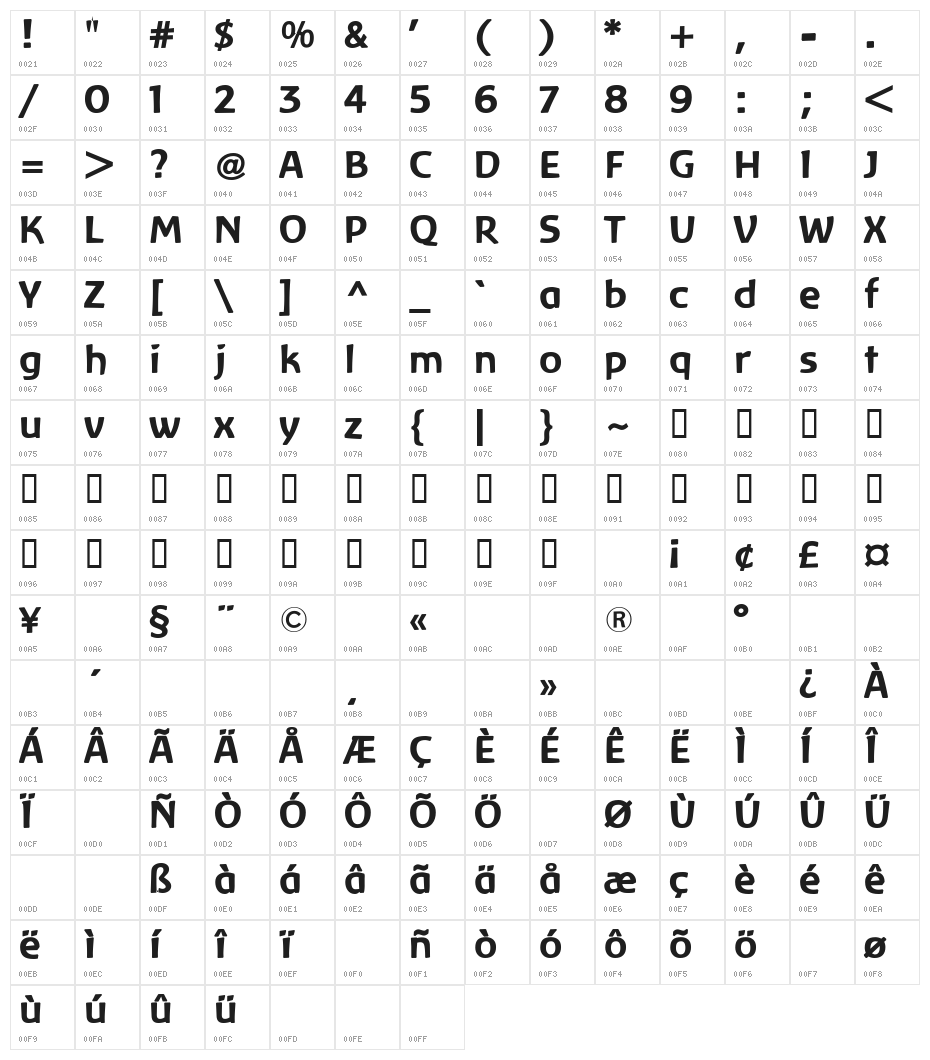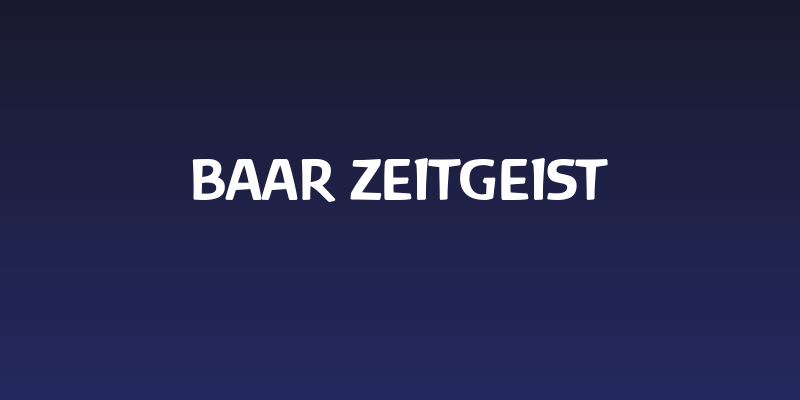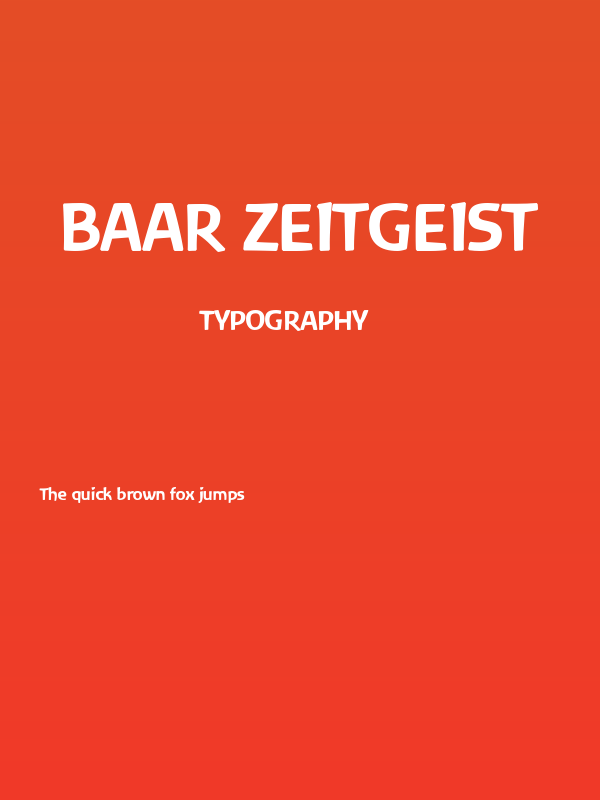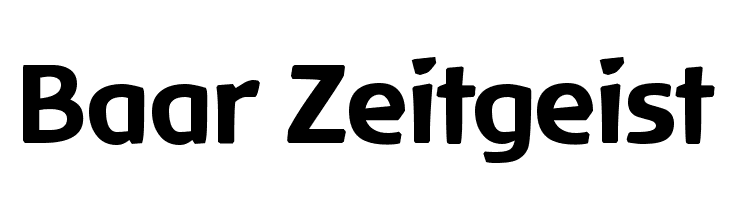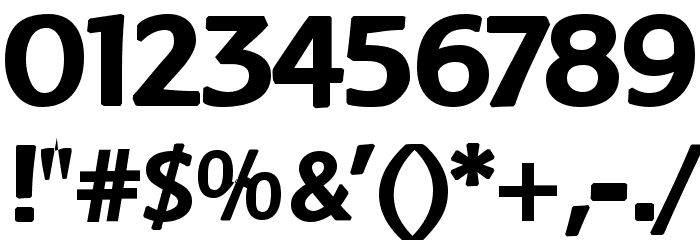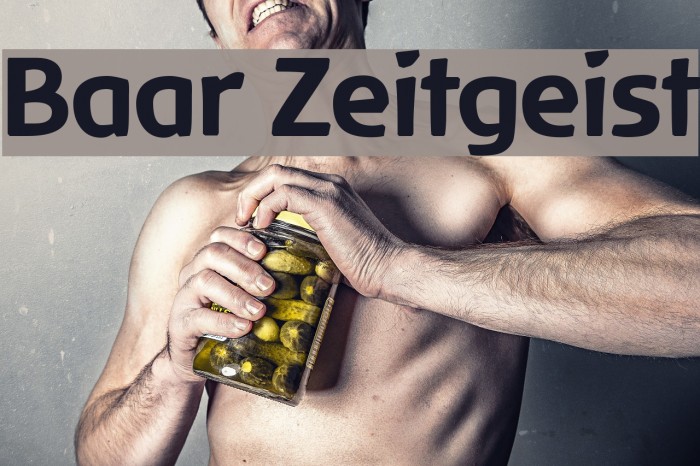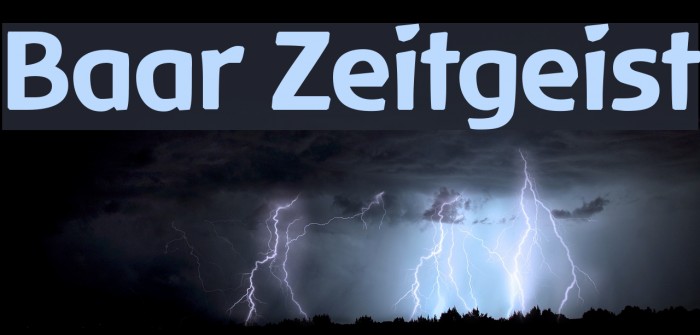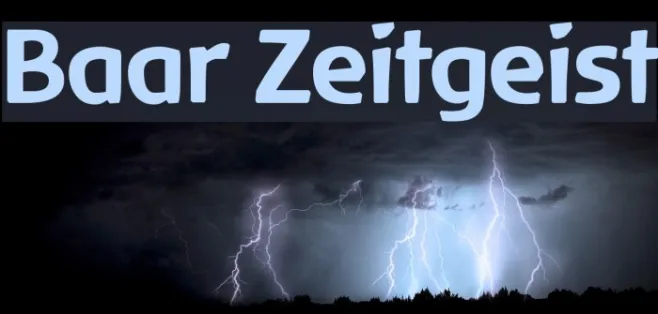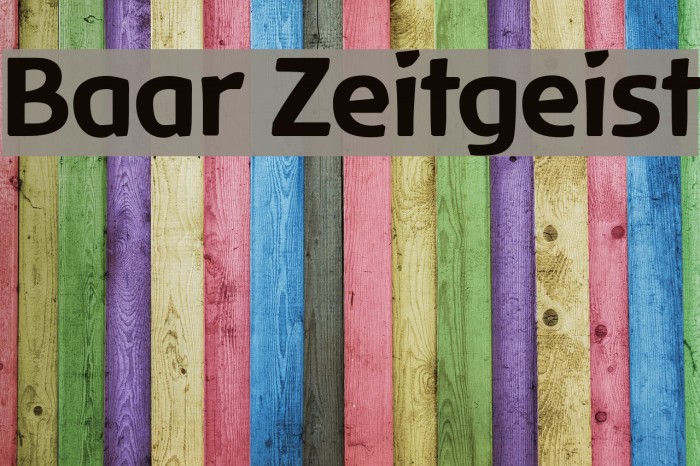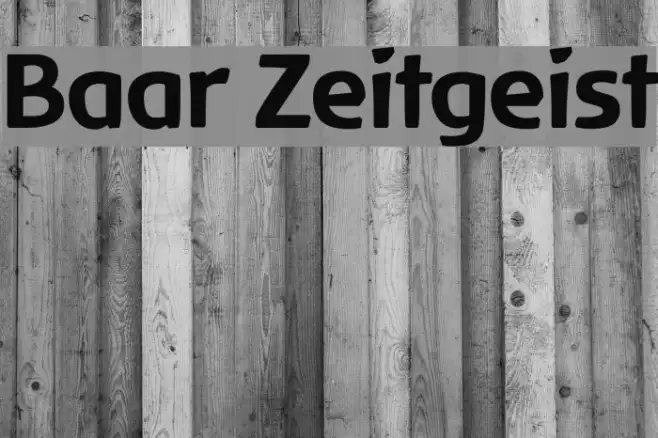
Baar Zeitgeist Font
Baar Zeitgeist Description
This font features a bold and dynamic style with a playful yet structured appearance. The characters are slightly condensed, giving a compact feel while maintaining readability. The strokes are consistent in weight, providing a uniform look across all characters. The rounded edges add a friendly and approachable vibe, making it suitable for a variety of design contexts. The numerals are clear and distinct, ensuring legibility in both print and digital formats. Special characters are well-integrated, maintaining the overall aesthetic of the font. Its modern design is versatile, making it ideal for both casual and professional applications.
| Proposed Projects | Ideal for branding, advertising, posters, and digital media where a modern and approachable look is desired. |